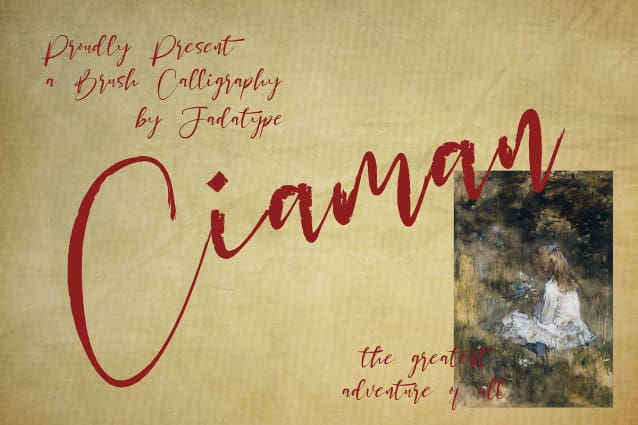
Ciaman Brush Font
Ciaman Brush Font is scriptt that comes with brush. Suitable for product, Branding, social media, logotype and so on. contains standard English letters, numbers, punctuation, and several accents that support multilingualism.